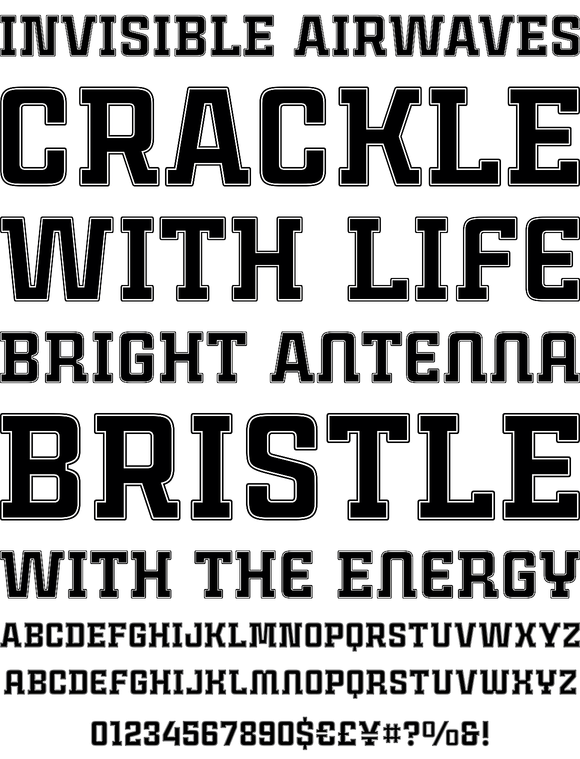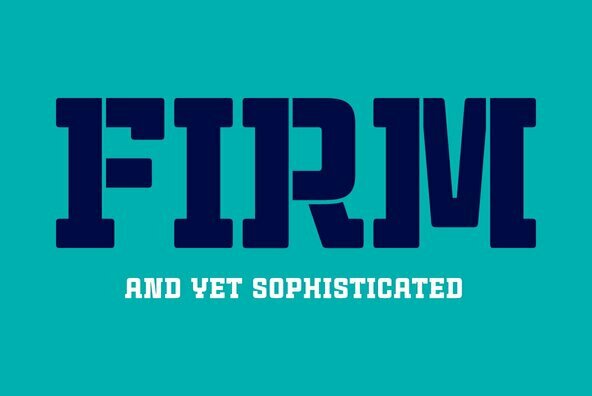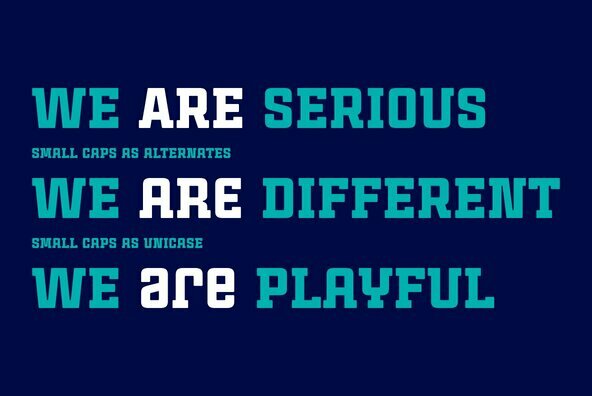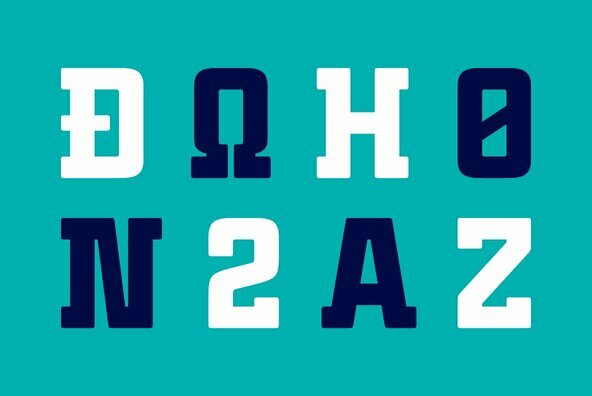
Cintra Slab Font
Cintra Slab font family has been designed for Graviton Font Foundry by Pablo Balcells in 2014. It is a slab serif, bold, geometric typeface with subtle rounded angles, which provides a soft, pleasent appearence.
Cintra Slab consists of 4 styles.